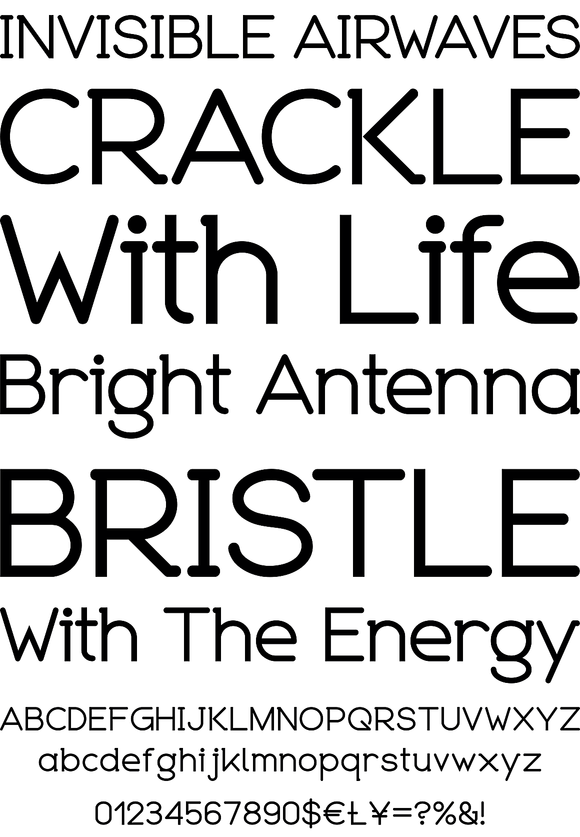
Organicon
Organicon is based on geometrical forms used in chemical formulas and tables. It is the best possible font for usage in scientific areas, last but not least because of its handwriting character and excellent legibility. Organicon was designed by Dr. Philip Kraft in 2002, for the URW++ FontForum.